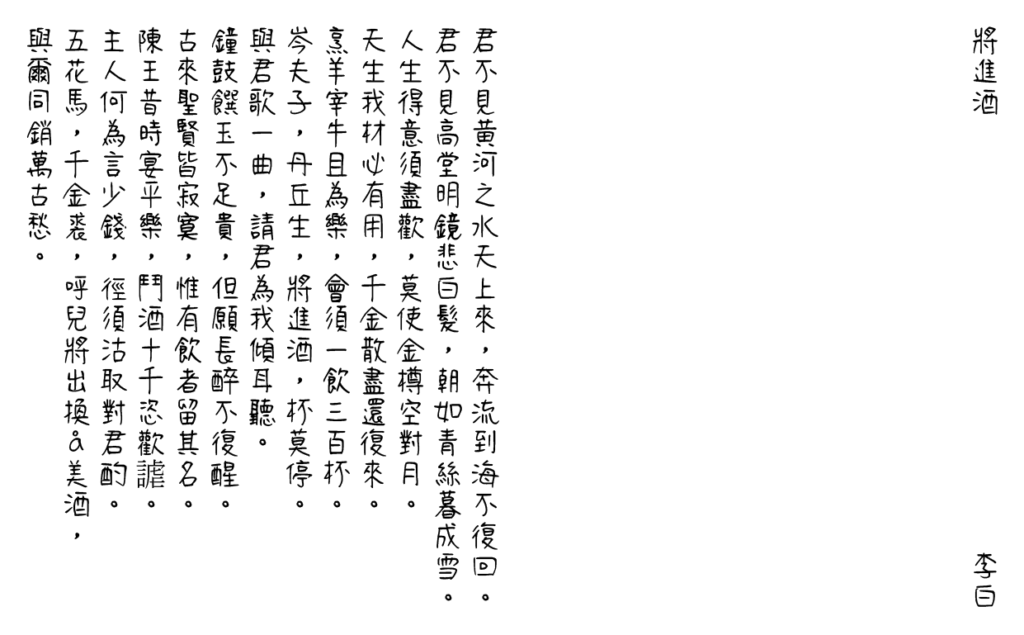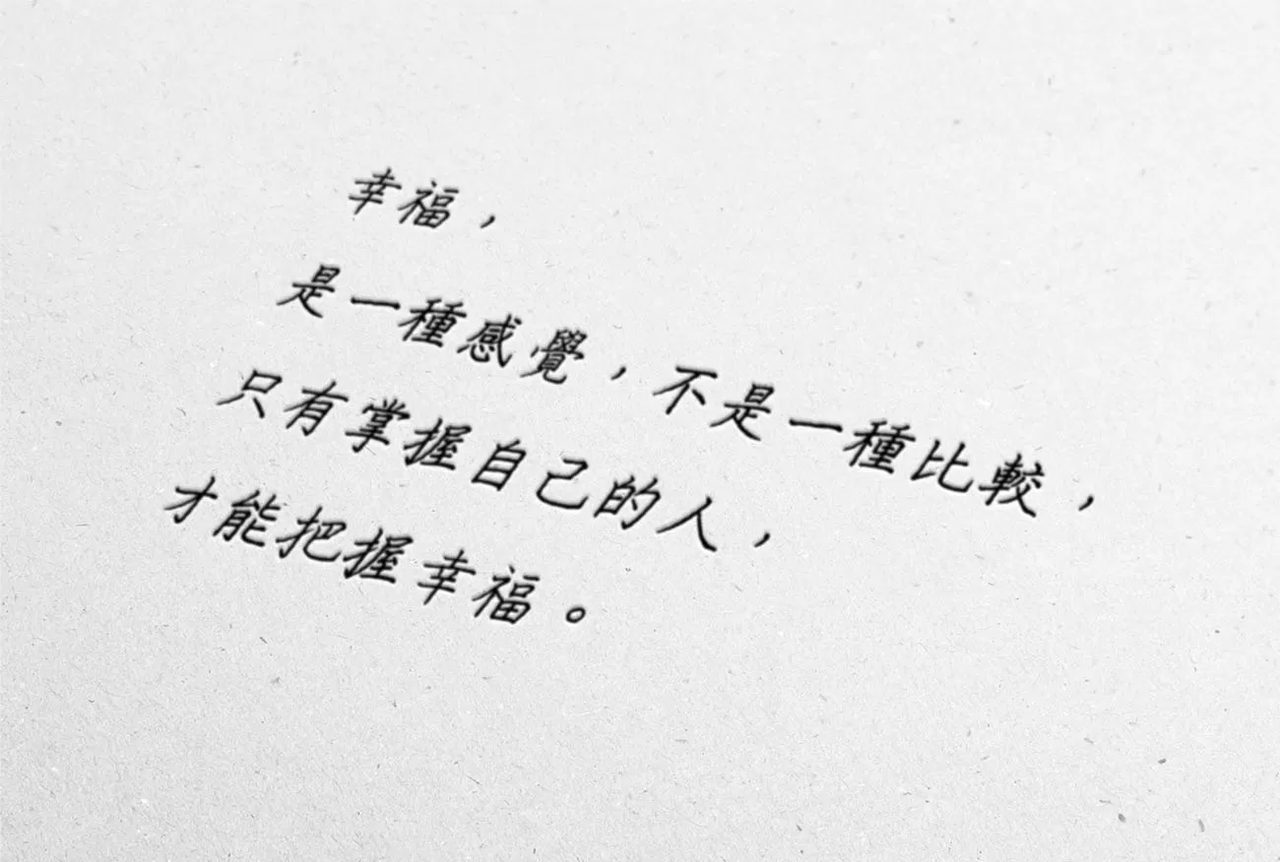
Looking for a free, commercial-use Traditional Chinese font with a clean, understated feel? This is the aesthetic that Hong Kong and Taiwan designers call 文青 (wenqing) — minimal, refined and quietly stylish — and the good news is you can get the look without spending a cent. Below are five free fonts that fit the bill, including honest notes on which ones actually survive a print run.
What Does "Wenqing" Actually Mean?
In recent years, plenty of shops and products have leaned on a wenqing aesthetic as their hook, and the wenqing way of dressing has become one of our everyday styles too. Filtered through commerce, the look has come to stand for simplicity and refinement — clean, uniform, tidy. Those words are practically synonyms for wenqing.
If we trace the term back to the Republican era, "wenqing" is short for 文藝青年 — "literary and artistic youth." The bar for earning that label was high: it demanded real literary cultivation, inner depth and a certain quality of thought. To me, a wenqing is like the junzi (gentleman) of the classical age — someone with a sense of noble integrity and backbone.
What Makes a Font Feel "Literary"?
Working from that definition, we can pull out the qualities to look for in a typeface: simple, clean, and carrying a bit of character and artistry. Every font recommended below is judged against that yardstick.
Taipei Sans TC (台北黑體)
Taipei Sans TC arrived as a free, commercial-use typeface built for Traditional Chinese print typography — and that last part is the key point: it is genuinely made to be printed. As a sans-serif (黑體), it is clean and unfussy, with very little ornamentation. It also fixes the display problems that plagued Source Han Sans TC (思源黑體 TC).
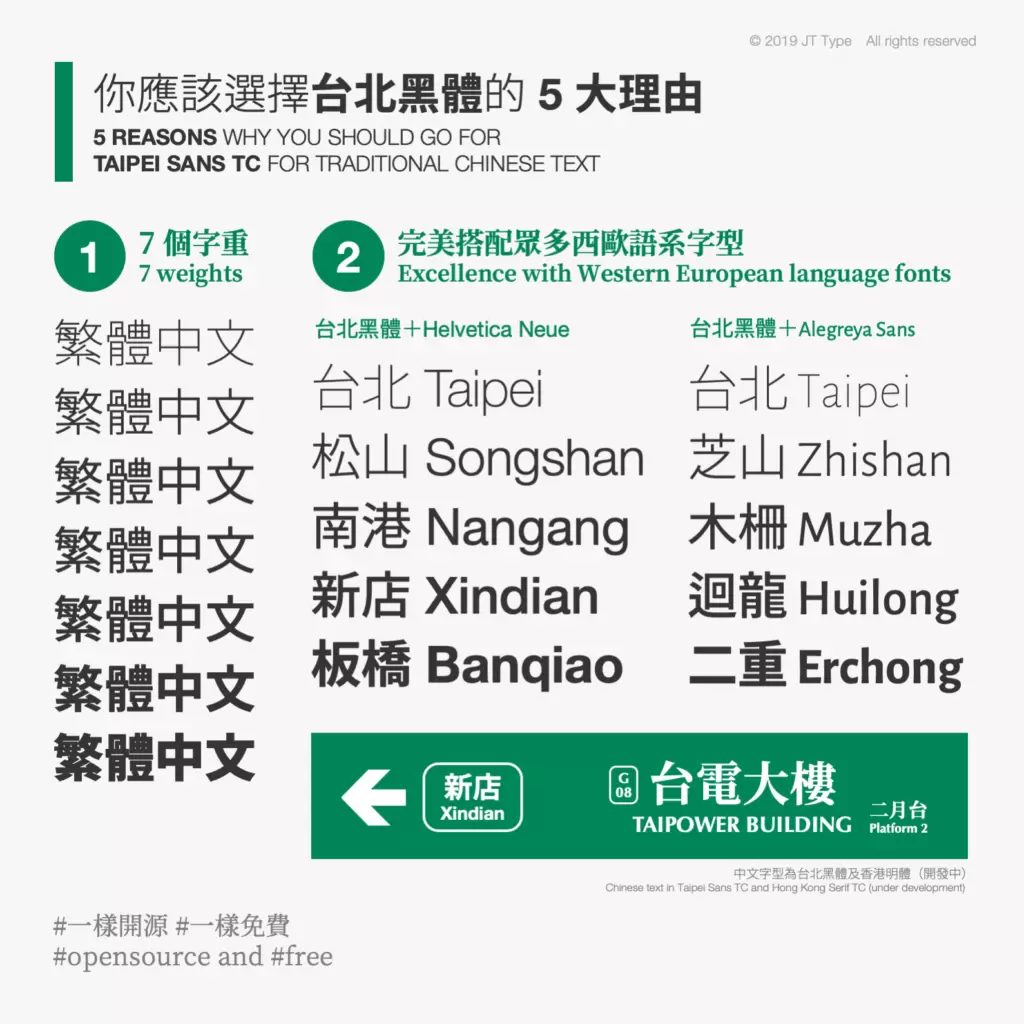
Glow Sans (未來熒黑)
Compared with Source Han Sans, Glow Sans has a simpler shape and a fresher, lighter feel on the page. Its central counters and character faces are narrower, and the weight balance has been re-tuned across the family. The stroke details are handled more cleanly — simplified and straightened out — which makes it read as more literary than an ordinary sans.
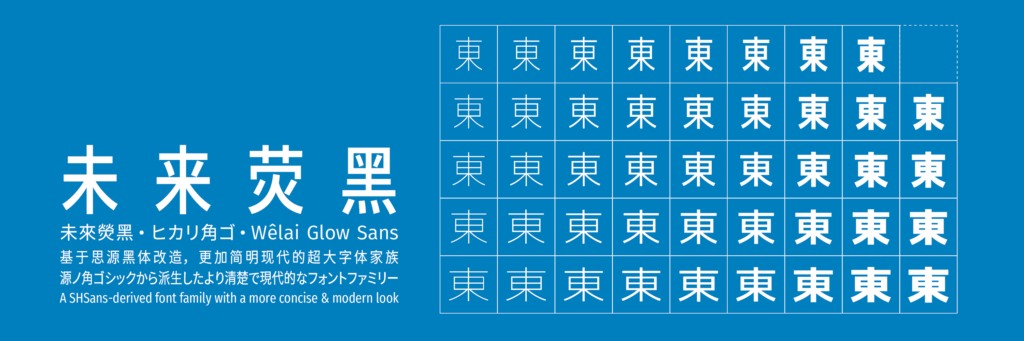
An Ultra-Thin Japanese Font (日本超細文青字體)
Right now this is the standout among all the hairline-weight faces. It is copyright-free, fine for both commercial and personal use, and its whole appeal is that ultra-thin stroke — about as minimal as type gets, and a genuine wenqing favourite. One caveat: it is not really suited to print. The strokes are so fine that printed output tends to break up and drop characters.
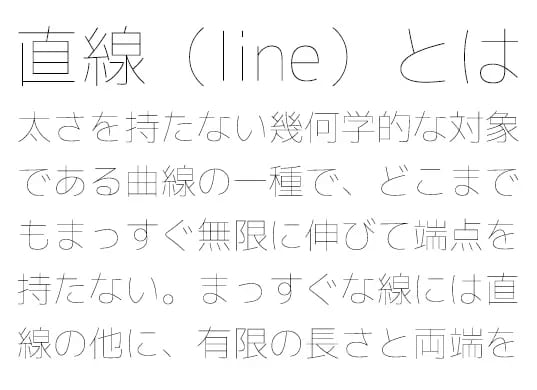
The Peak Font (隨峰體)
Fans of hard-pen calligraphy are in luck. At 22:22:22 on 22 February 2022, CjkFonts (which uses deep learning to help build fonts) released the Beta of its newest open-source handwriting face, The Peak Font. It was created by A-Kwan, a Hongkonger who loves to write; over two years he wrote it out character by character with a gel pen, keeping the traces and little imperfections of real handwriting.
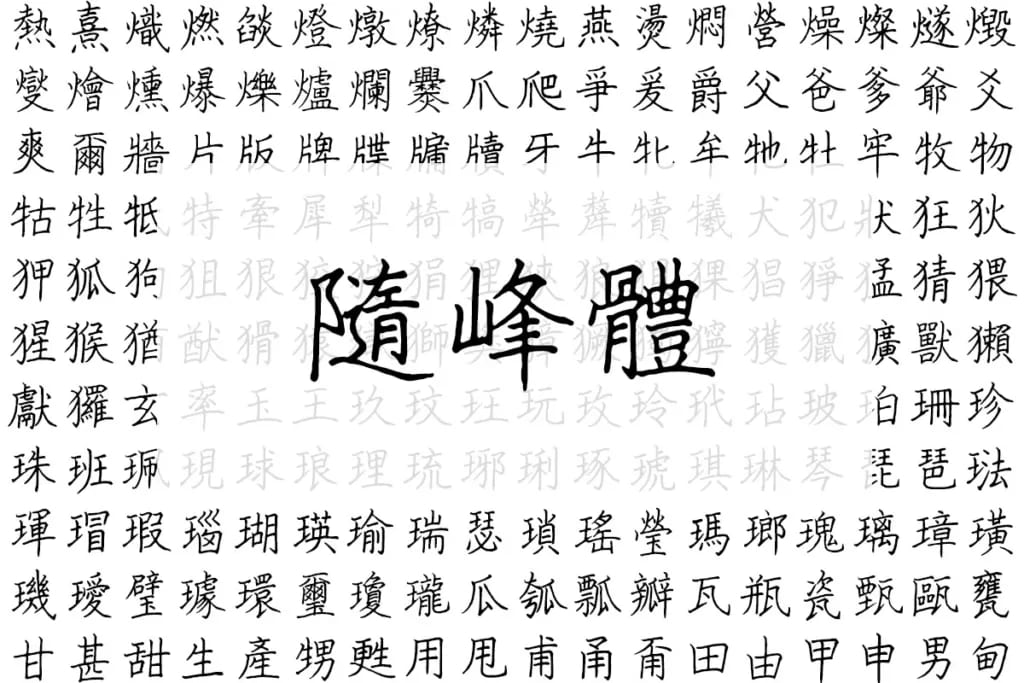
Jason Handwriting (清松手寫體)
A handwriting font from a devoted Taiwanese developer, free for anyone to download and use, commercial projects included. Jason Handwriting is comfortable to read and full of personality — and personality is exactly the attitude the wenqing crowd aspires to. For character-driven, individual designs it is a great pick, and it ships in six different weights, which makes it easy to work with.